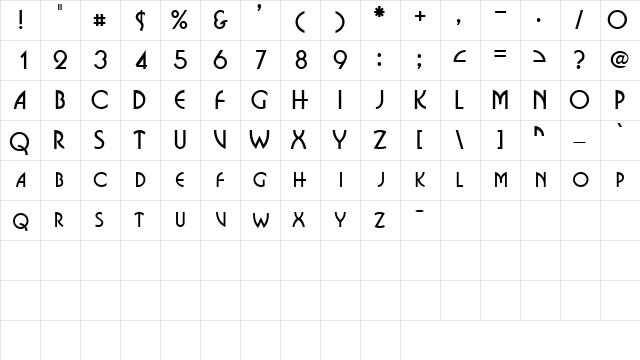
EpitomeSCapsSSK Regular
Design Context for EpitomeSCapsSSK Typeface
EpitomeSCapsSSK offers clean, dependable letterforms without strong stylistic allegiance, making it a practical choice for designers who need flexibility.
Pro Tip: Use EpitomeSCapsSSK in both headline and body roles to test its range before committing to a single application.